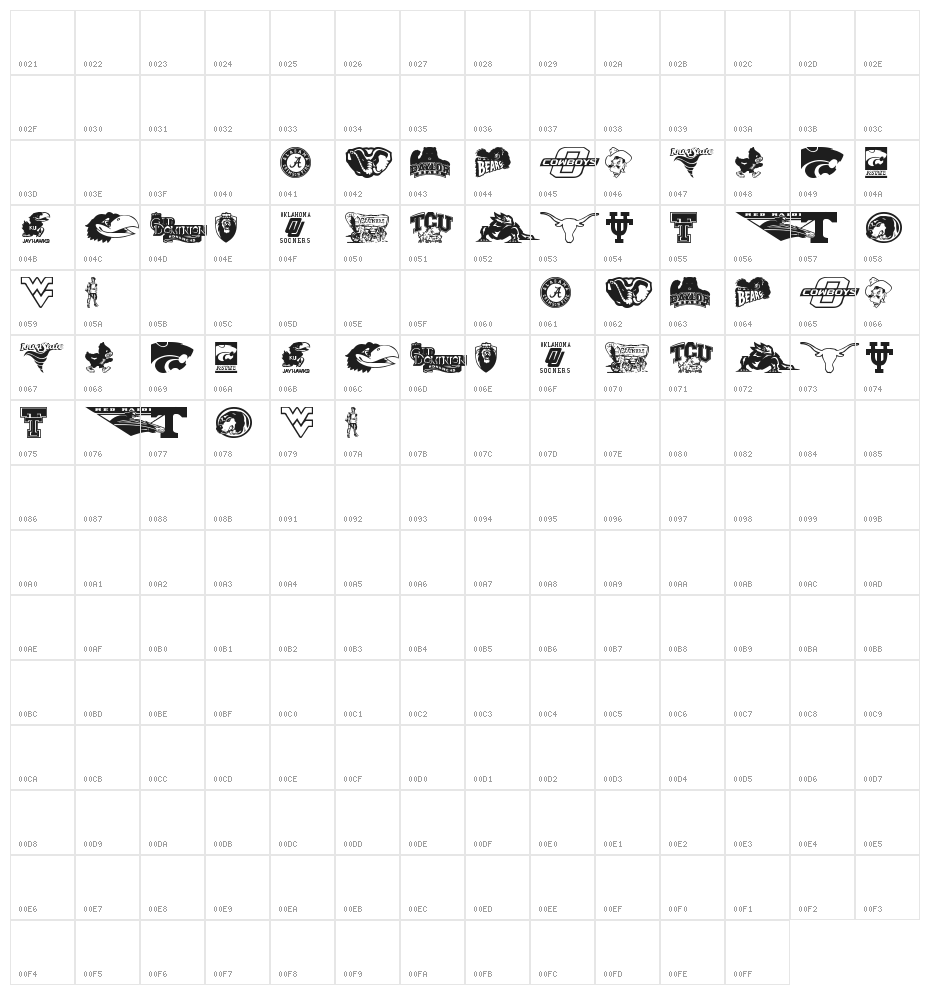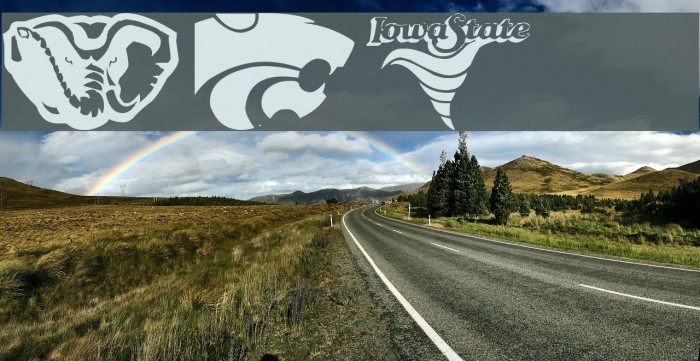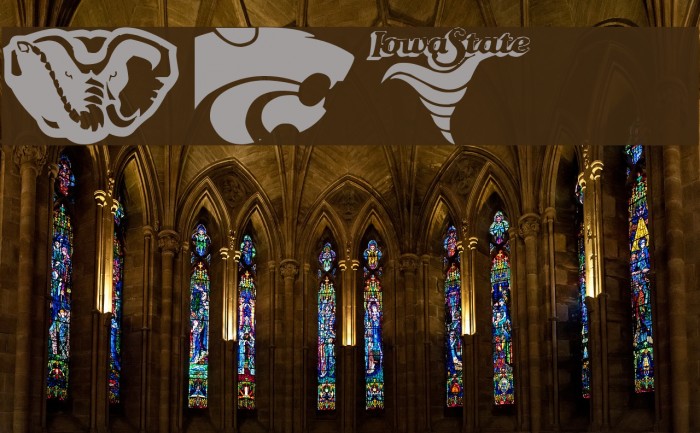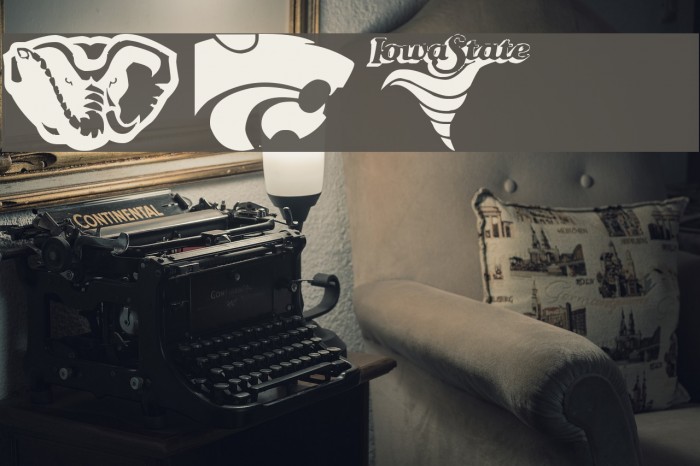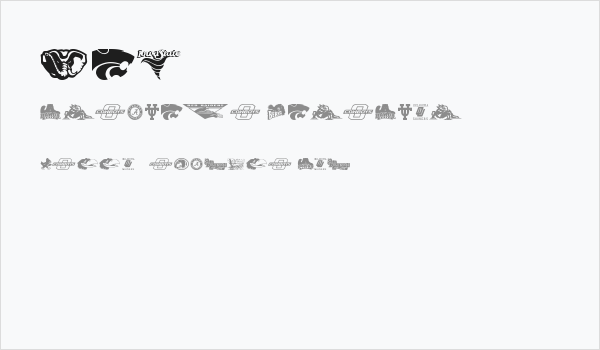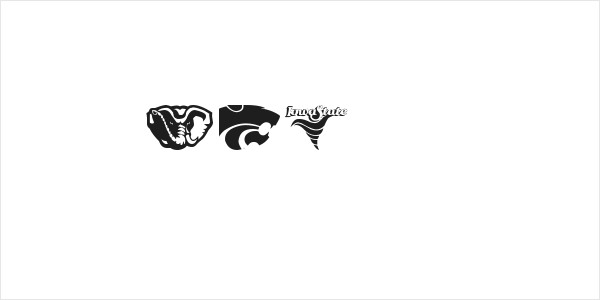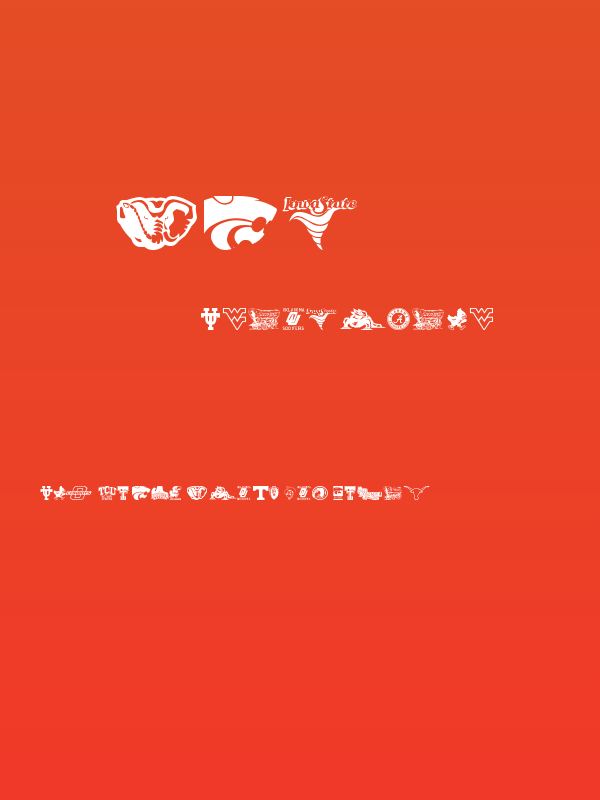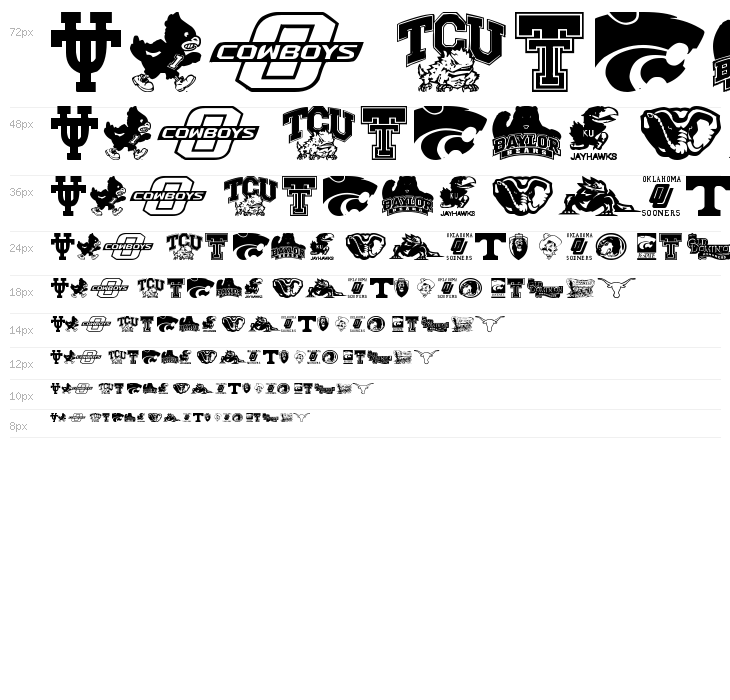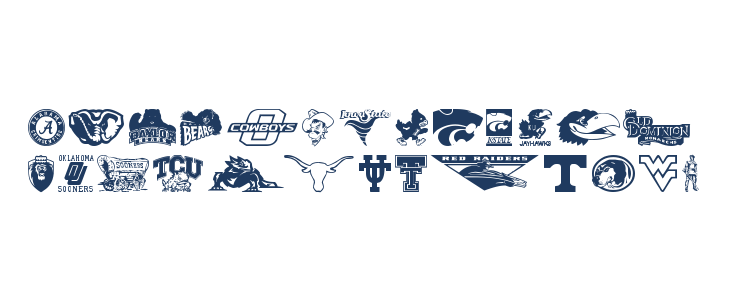
Big-12 Font
Big-12 Description
A collection of collegiate logos representing various Big 12 Conference teams, featuring a mix of stylized mascots, letters, and symbols in black and white.
| Overall Style | Sporty, collegiate, emblematic |
| Use Case | Logos, sports team branding, merchandise |
| Proposed Projects | Sports branding, collegiate merchandise, event promotions, fan apparel. |